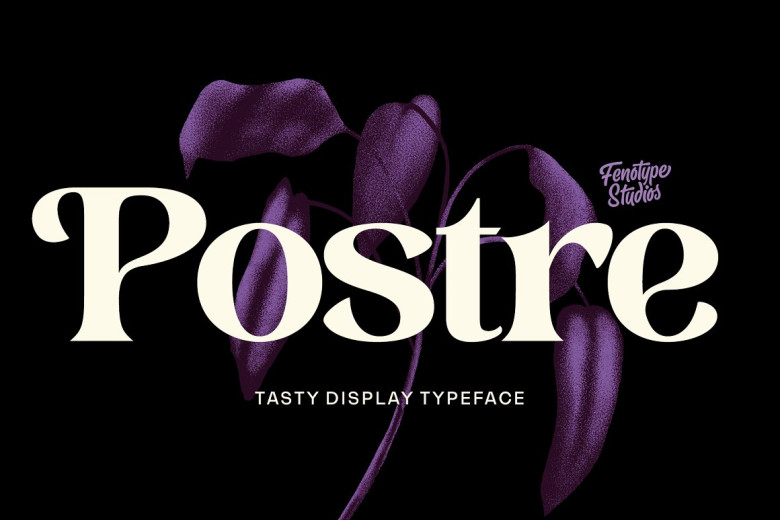
Postre Font
Postre is a serif font of high contrast with some elements Art Nouveau. Postre is ideal for use at larger sizes where you wantto give an elegant look, especially suitable when dealing extensivelywith the reproduction of text–however don’t strain your luck using it (for example) on business cards you should keep in mind that its letter spacing is very close indeed.
It is a lively font with black outline and 50 alternate characters either as Agate or its version Houndstooth in Houndstyle ready for the more informal display purpose and can naturally be used for varient situations like swash, stylistic, discretionary and ortographic orthography.
Postre Serif Font